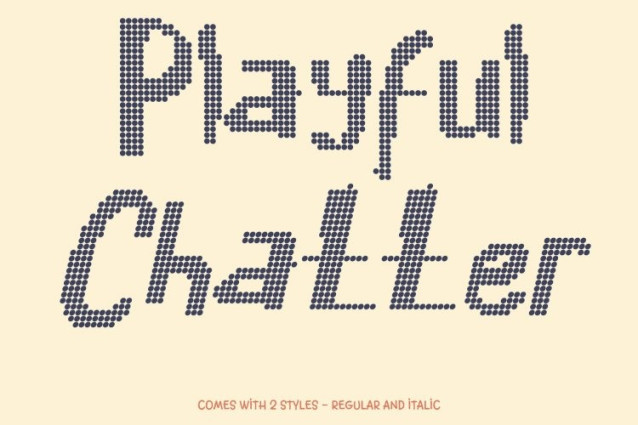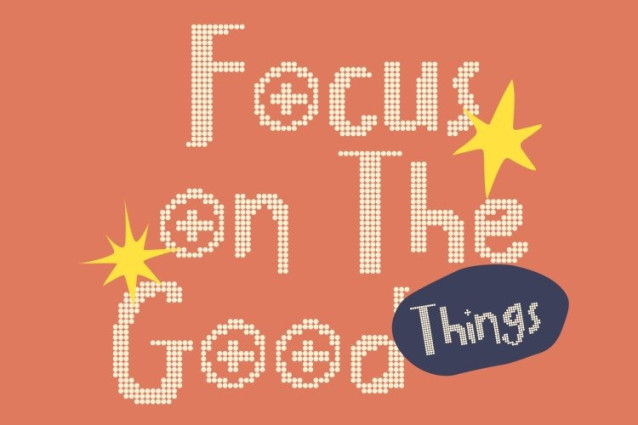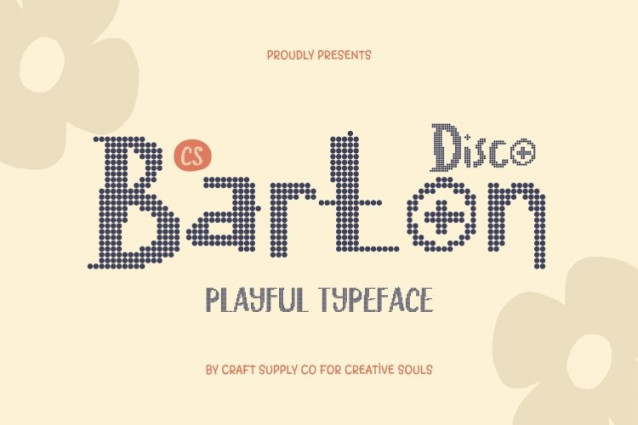
CS Barton Disco Font – This captures the spontaneous spirit of bold marker strokes, enhanced with a lively disco-inspired rhythm. Its handwritten display style feels confident yet relaxed, allowing text to move with casual vibrance and expressive personality. Every stroke feels natural and energetic, making designs come alive with warmth and authenticity.
Floral-Inspired Softness with Bold Character
A subtle floral influence gives this font a gentle, feminine charm without losing its strong marker presence. The soft curves and rounded edges balance the bold strokes, creating a harmonious blend of delicacy and confidence. This unique combination delivers warmth, approachability, and a playful sophistication.
Perfect for Branding and Lifestyle Creativity
This font shines in branding, lifestyle graphics, beauty products, social media visuals, and creative campaigns. Its handwritten character connects easily with audiences, helping brands express youthfulness, creativity, and modern charm with a relaxed, stylish tone.
Modern Versatility with Expressive Personality
While inherently playful, this font maintains a clean modern balance that ensures flexibility. It works beautifully for bold headlines, expressive logos, packaging, event posters, and digital content adapting seamlessly across print and screen while preserving its cheerful, disco-tinged personality.